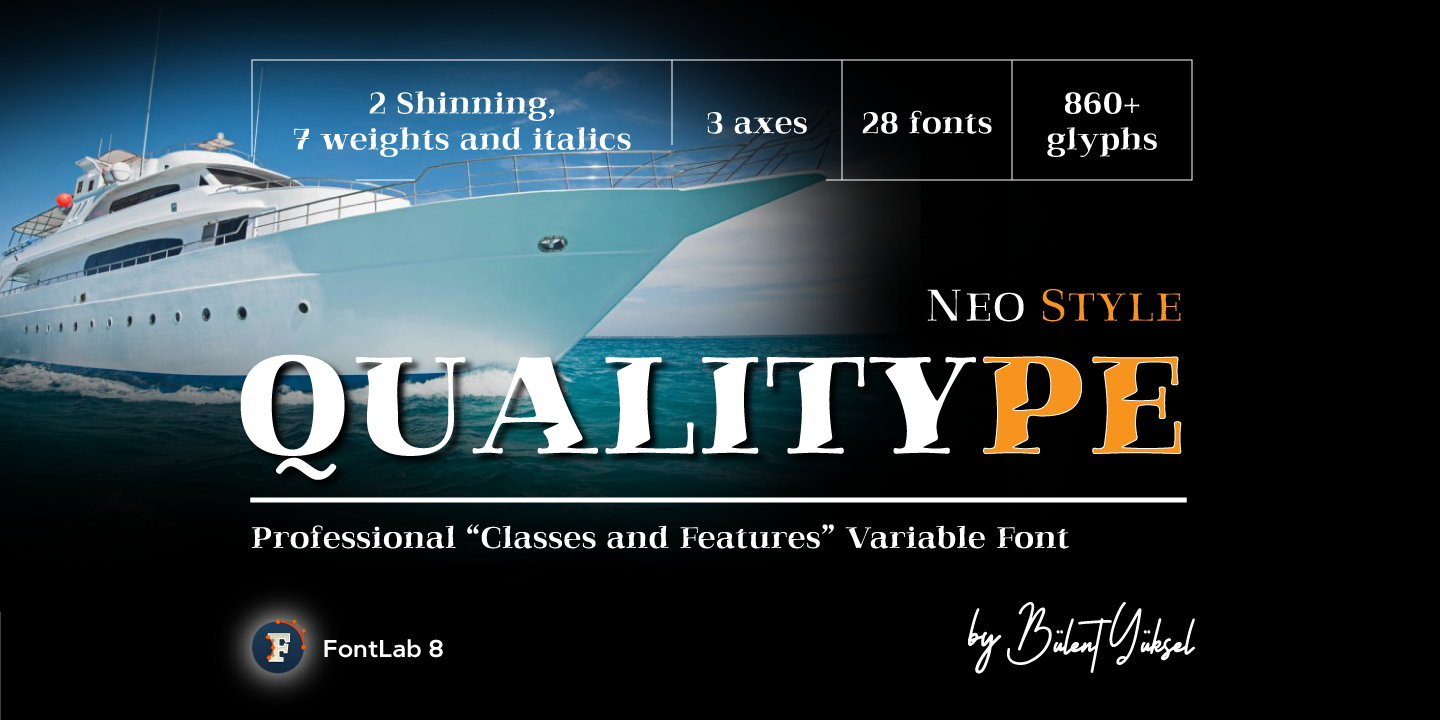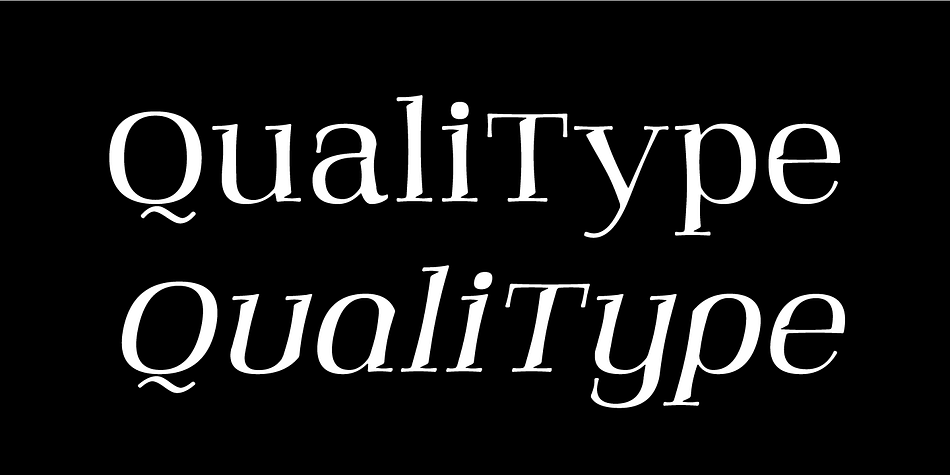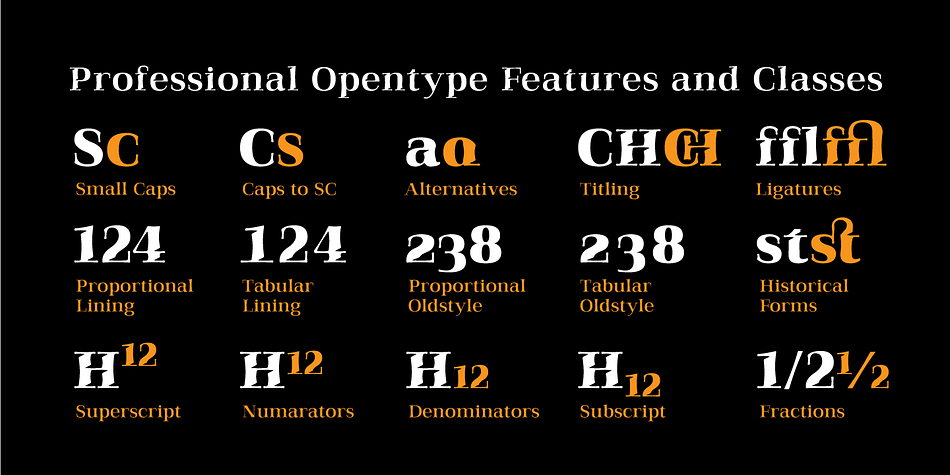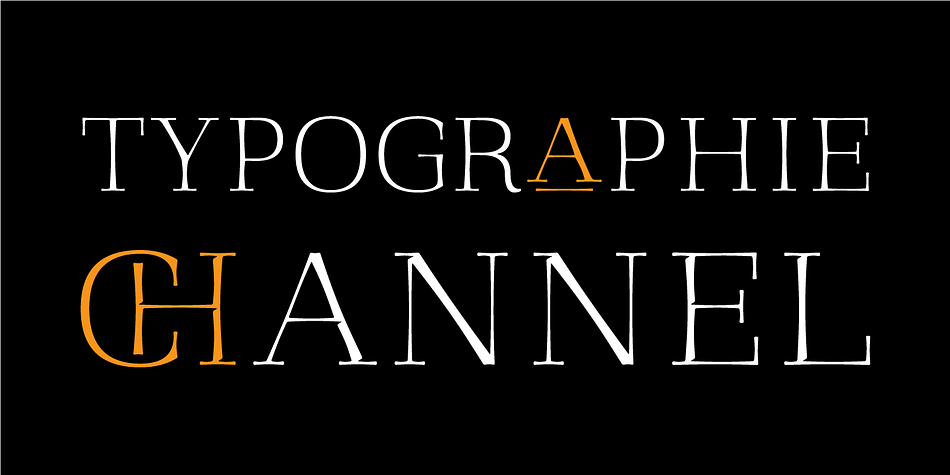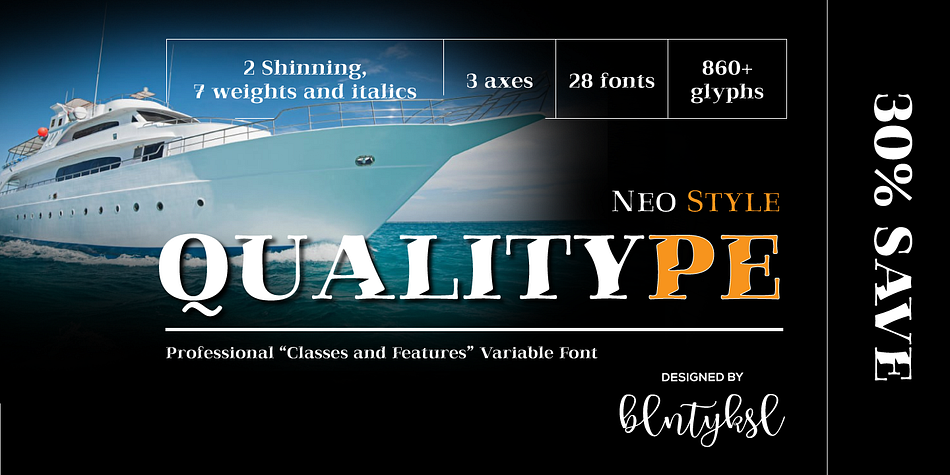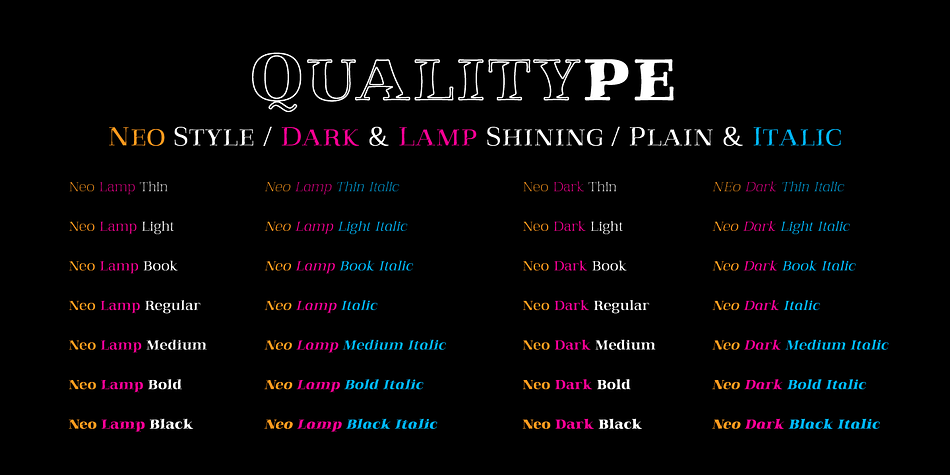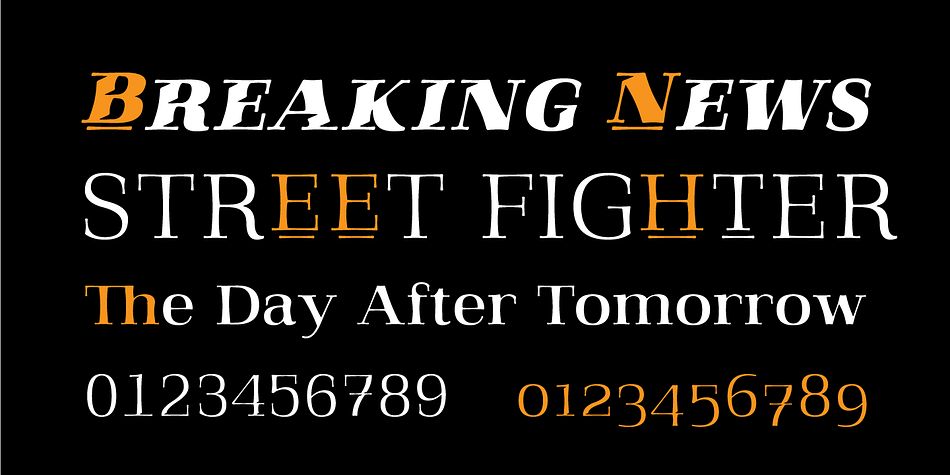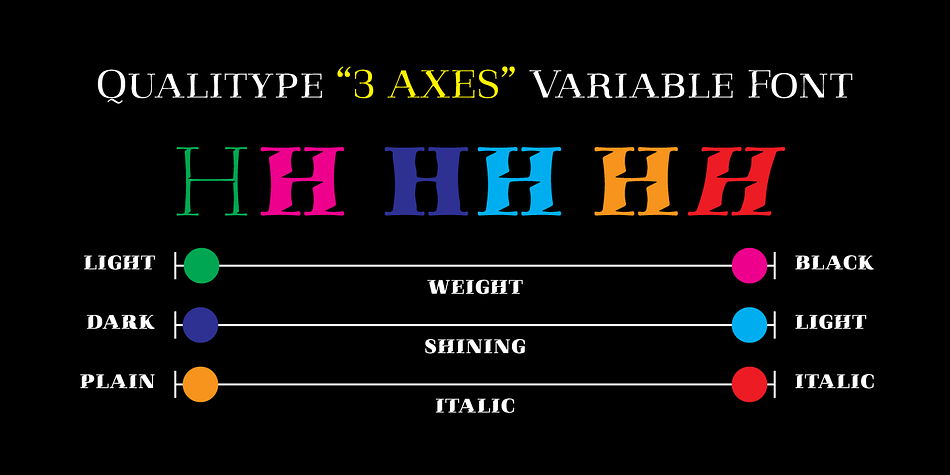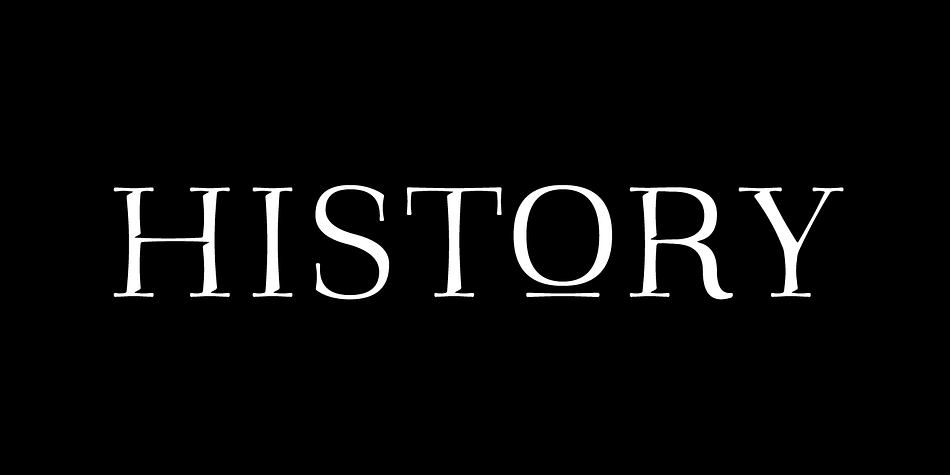
Qualitype Neo
Designed by Bülent Yüksel, Qualitype Neo is a slab serif font family. This typeface has twenty-nine styles and was published by Bülent Yüksel.
QUALITYPE NEO STYLE VARIABLE
“Qualitype Neo Style Variable” font extends its use by providing weights from “Fine” to “Black”. Natural curves, ridges, and curved bodies grow in character as the font gains weight.
“Qualitype Neo Style Variable” is an exciting serif font with contemporary twists.
It has a distinctive sound that preserves the simplicity and elegance of classic “serif” fonts with a fresh, stylish rework. Her personality is bold and fills the space without shouting, she looks elegant and confident. The low X-height provides a great amount of visibility at all weights and is optically corrected for better readability.
In the process of working on “Qualitype Neo Style Variable” we wanted to expand the functionality of the typeface a bit more, so after a few tries two different fonts were born: Old, Neo and italic versions.
“Qualitype Neo Style Variable” is perfect for use in magazines, in the fashion industry, in the branding of premium goods and services. “Qualitype Neo Style Variable” is quite versatile and suitable for use both in headings and in text arrays. In addition, we have done manual hinting in the typeface, and now it can be used with a clear conscience in the web and applications.
“Qualitype Neo Style Variable” typeface consists of 28 styles: 2 Shining, 7 weights and italics. Each typeface style consists of 860+ glyphs (except for the decoratives). “Qualitype Neo Style Variable” supports over 80+ languages.
OPENTYPE FEATURES
aalt, dnom, onum, pnum, tnum, lnum, numr, frac, zero, sing, sups, subs, case, c2sc, smack, salt, hist, titl, holing, dig, liga, ss01, ss02, ss03, ss04, ss05, ss06, ss07, ss08, ss09, ss10, kern
FEATURE SUMMARY:
- 3 Axes:
7 weights: Thin, Light, Book, Regular, Medium, Bold and Black.
2 Shining: Dark and Lamp.
Matching italics (12º) for all weights and style .
- Matching small caps for all weights and widths.
- Lining and old style figures (proportional and tabular).
- Alternate characters (a, d, g, m, n, p, q, r, u, y).
- Unlimeted fractions.
- 24 Dingbats.
- Extended language support.
- Extended currency support.